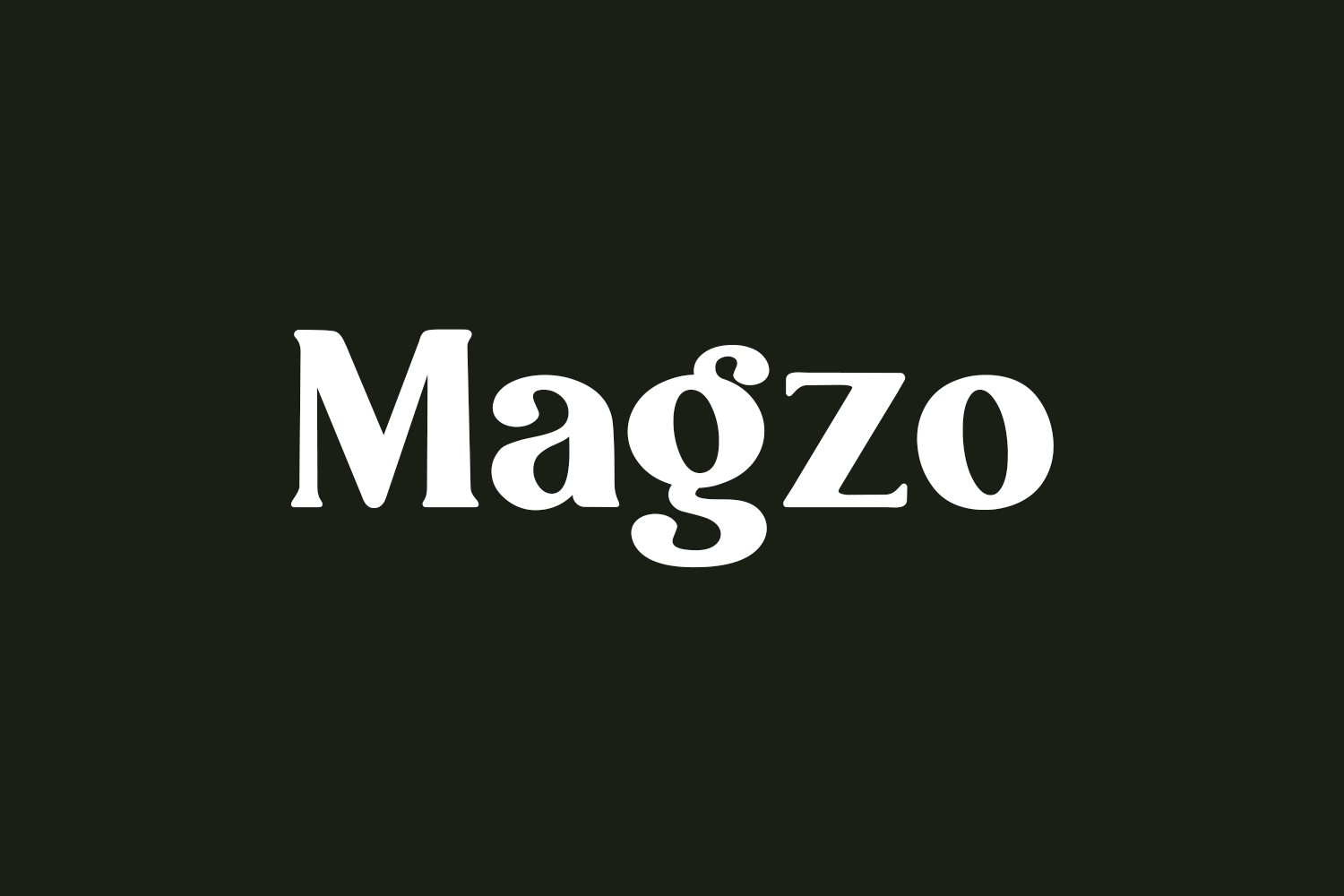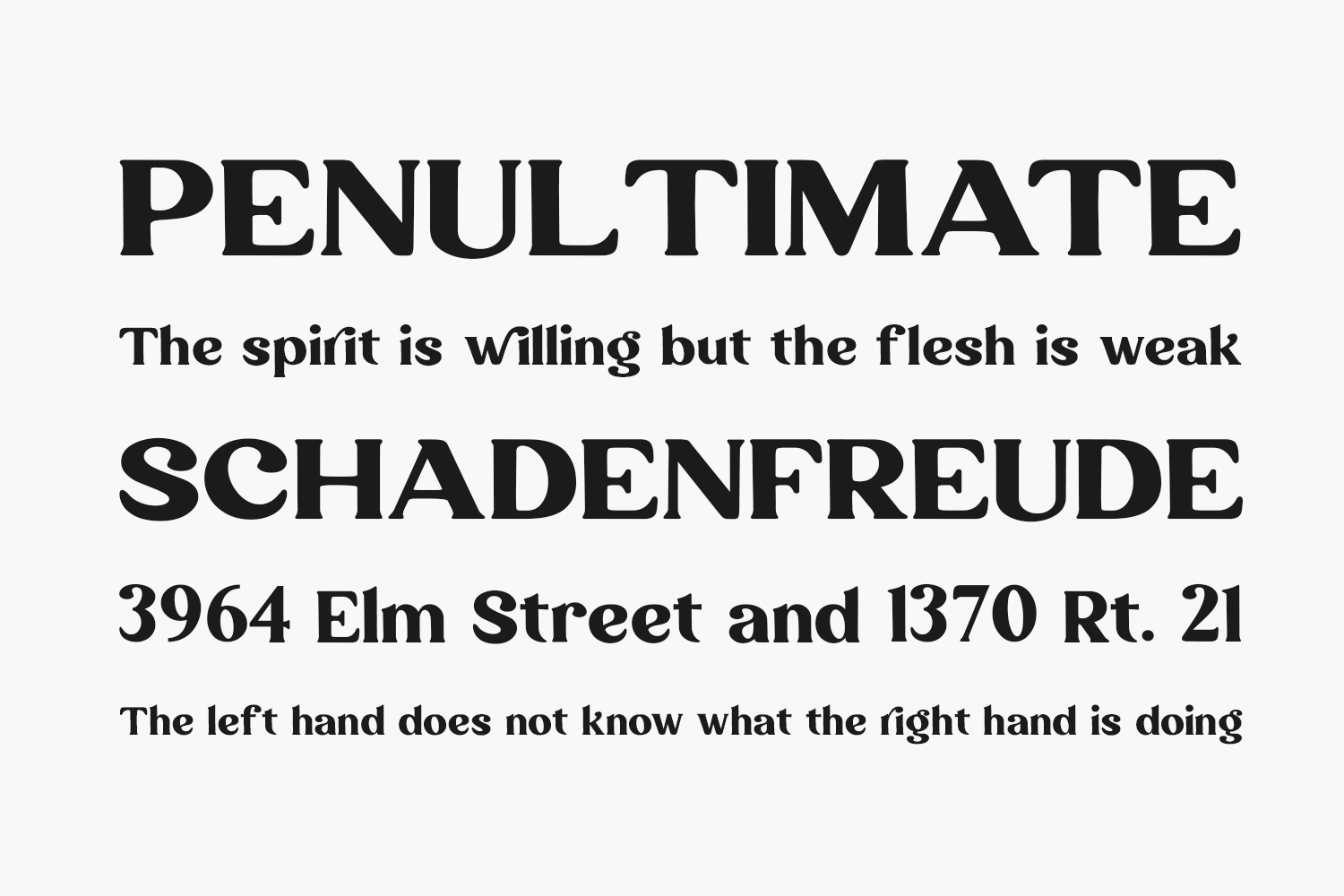
Meet Magzo Free Font, an extraordinary and daring display font that stands out from the crowd. Crafted with precision, it’s destined to become your go-to choice, elevating all your creative endeavors to new heights of excellence. Download the font for free if you need it for personal use or purchase the full version for commercial use.